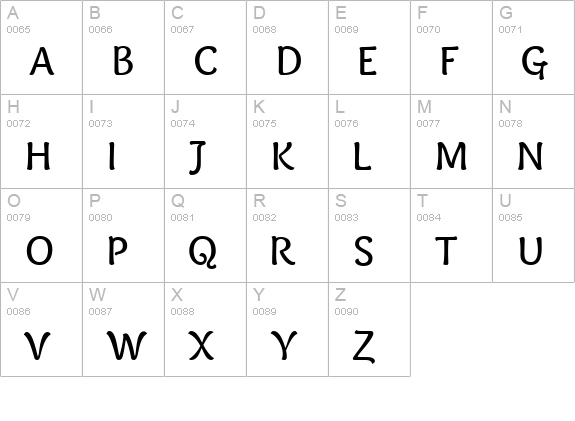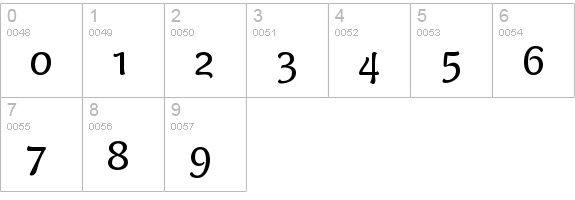
PFArmonia-Regular Font Details
PFArmonia-Regular is the standard, neutral variant in the PFArmonia typeface family \xE2\x80\x94 well suited to general body text, paragraphs, and standard typographic work.
PFArmonia-Regular is a versatile and elegant font that exudes sophistication and modernity. With its clean lines and timeless appeal, this font is perfect for a wide range of design projects, from branding to editorial layouts. The balanced proportions and legible letterforms make PFArmonia-Regular a great choice for both print and digital applications. What makes PFArmonia-Regular even better is that it is available for free download at FontsMarket.com. This means that you can easily access this high-quality font without any cost, making it a valuable addition to your font library. Whether you're a designer looking for a new go-to typeface or a hobbyist experimenting with typography, PFArmonia-Regular is sure to meet your needs with style and ease. Download it today and elevate your designs with this beautiful and freely accessible font.